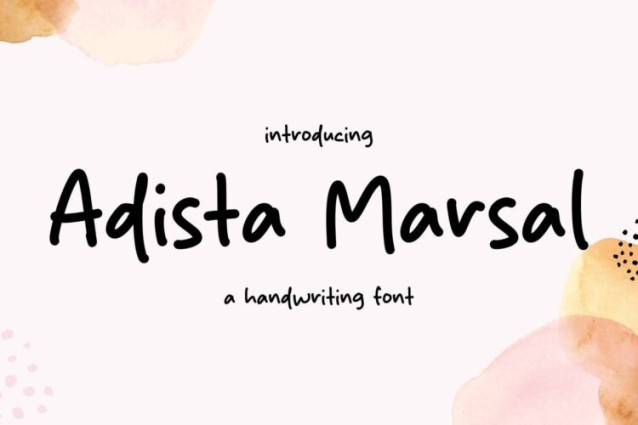
Adista Marsal Font
Adista Marsal Font is a simple and friendly handwritten font. Its natural and unique style makes it incredibly fitting to a large pool of designs. The only limit is your imagination!